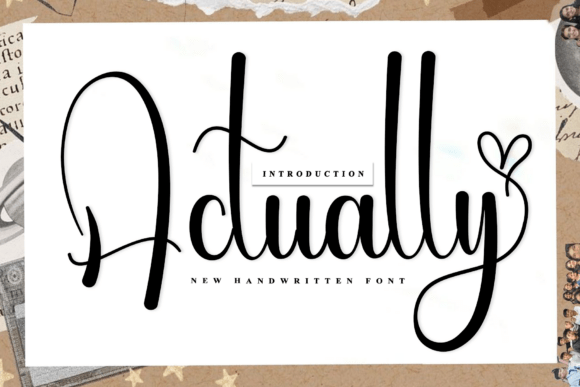
The Actually Font: A Sophisticated Script for Creative Projects
With its sweeping, looping ascenders and warm, organic aesthetic, Actually Font was the perfect fit for the bakery’s branding. But what really sets it apart is its versatility – it’s just as at home on boutique product packaging, upscale lifestyle marketing materials, and creative editorial titles.
- ✅ Elegant, calligraphic style with a warm, organic feel
- ✅ Sweeping, looping ascenders that add a touch of artisanal flair
- ✅ Supports OpenType features, glyphs, and stylistic alternates
- ⚠️ Some users may find the font a bit too ornate for very small font sizes or body text
- ⚠️ Limited use of uppercase letters, which can make it less suitable for certain applications
The Story Behind Actually Font: Designer Inspiration
According to the font’s creators, Actually Font was inspired by the art of traditional calligraphy. The designers wanted to create a font that captured the warmth and elegance of handwritten script, while still feeling modern and sophisticated. The result is a font that’s perfect for creative projects that require a touch of artisanal flair.
| What makes Actually Font so special? | Actually Font’s unique blend of calligraphic style and warm, organic aesthetic makes it perfect for creative projects that require a touch of artisanal flair. |
| Is Actually Font easy to read? | Yes! Actually Font is highly legible, even at smaller font sizes, making it perfect for body text and other applications where readability is key. |